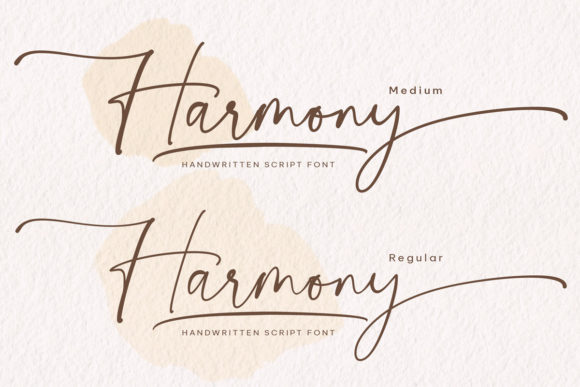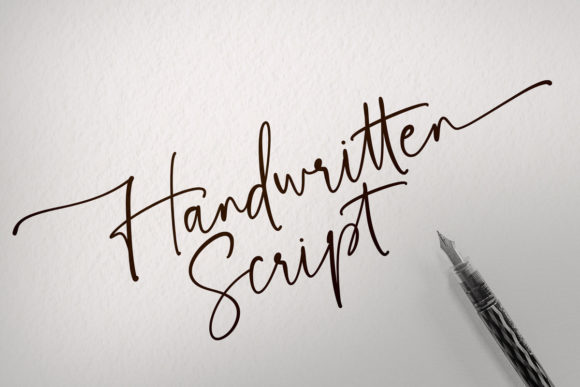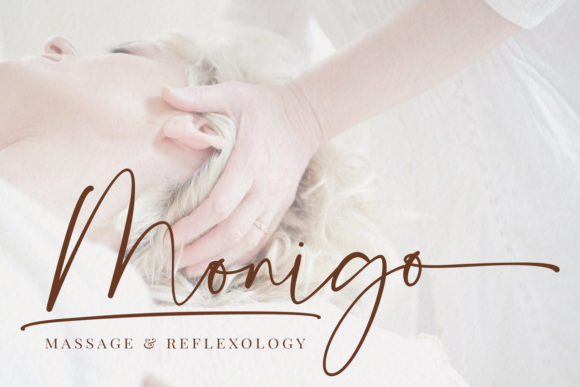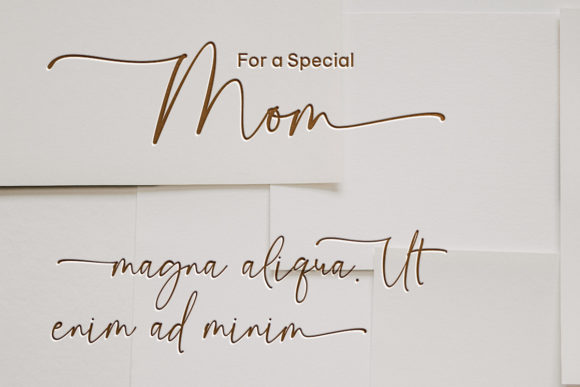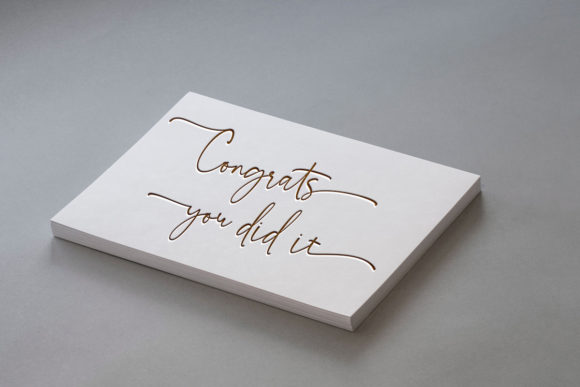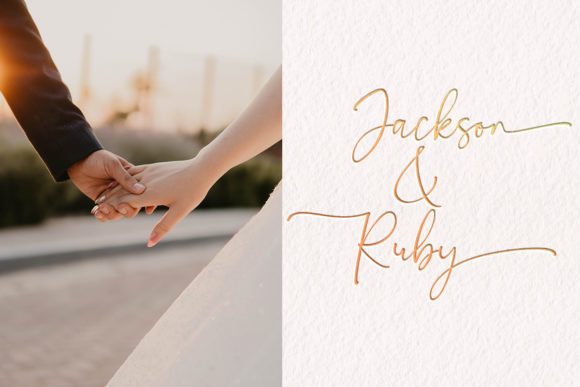
Introducing Harmony Font: Elevate Your Designs with Elegance
Are you on the hunt for a font that exudes sophistication, elegance, and a touch of personal flair? Look no further than Harmony Font, a stunning handwritten typeface that is sure to become your new favorite. Designed with meticulous attention to detail, Harmony Font is perfect for crafters, designers, and anyone looking to add a dash of luxury to their projects.
The Beauty of Handwritten Elegance
Harmony Font is a masterfully crafted handwritten font that boasts a unique, exquisite feel. Its beautifully flowing strokes and curves make it an ideal choice for a wide range of design applications, from wedding invitations and fashion cards to branding and packaging. With its lovely ligatures and alternates, Harmony Font offers endless possibilities for creative expression.
Key Features of Harmony Font
- Beautiful Ligatures and Alternates: Harmony Font comes with a range of gorgeous ligatures and alternates, allowing you to add a personal touch to your designs.
- Exquisite Stroke: The font’s beautiful stroke adds a level of sophistication and elegance to any design, making it perfect for high-end applications.
- Versatile: Harmony Font is suitable for a wide range of projects, including wedding invitations, fashion cards, branding, and more.
Why Choose Harmony Font?
With so many fonts on the market, it can be difficult to choose the right one for your project. Here are just a few reasons why Harmony Font stands out from the crowd:
- Unique and Elegant: Harmony Font offers a distinctive, elegant feel that will set your designs apart from the rest.
- Highly Versatile: Whether you’re working on a wedding invitation or a fashion brand, Harmony Font is the perfect choice.
Using Harmony Font in Your Designs
So, how can you make the most of Harmony Font in your designs? Here are a few ideas to get you started:
- Wedding Invitations: Add a touch of luxury to your wedding invitations with Harmony Font’s elegant, flowing strokes.
- Fashion Branding: Use Harmony Font to create stunning fashion branding, from logos to packaging.
- Stationery: Elevate your stationery designs with Harmony Font’s beautiful ligatures and alternates.
Tips and Tricks for Working with Harmony Font
To get the most out of Harmony Font, here are a few tips and tricks to keep in mind:
- Experiment with Ligatures: Don’t be afraid to try out different ligatures and alternates to add a personal touch to your designs.
- Play with Font Sizes: Harmony Font looks great in a range of font sizes, so don’t be afraid to experiment to find the perfect fit for your design.
- Pair with Other Fonts: Harmony Font pairs beautifully with other fonts, so try combining it with a sans-serif or serif font for added visual interest.
In conclusion, Harmony Font is a truly exceptional handwritten font that is sure to become a favorite among designers and crafters. With its exquisite stroke, lovely ligatures, and PUA encoding, Harmony Font offers endless possibilities for creative expression. Whether you’re working on a wedding invitation, fashion brand, or stationery design, Harmony Font is the perfect choice. So why wait? Download Harmony Font today and elevate your designs with elegance and sophistication.